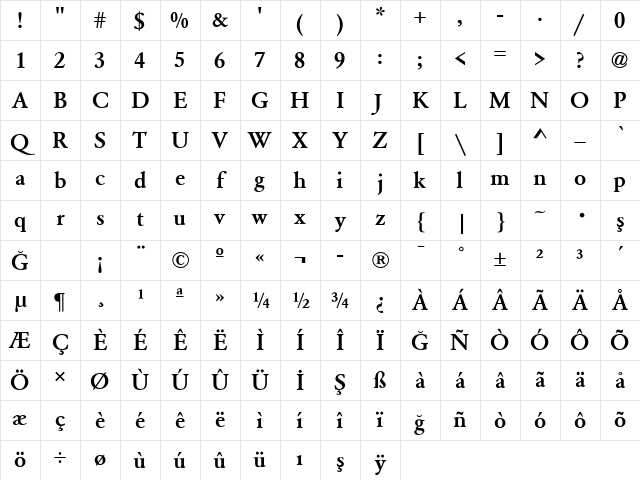
Garamond Medium Free Font
Garamond Medium
Design Context for Garamond
Garamond is a composed and adaptable typeface that performs quietly and consistently across a wide range of design contexts.
Pro Tip: Use Garamond in both headline and body roles to test its range before committing to a single application.